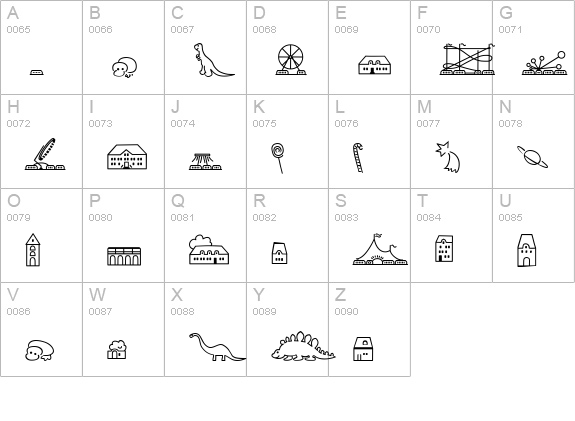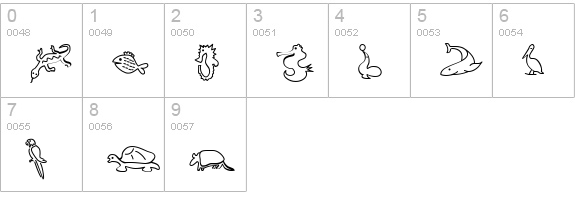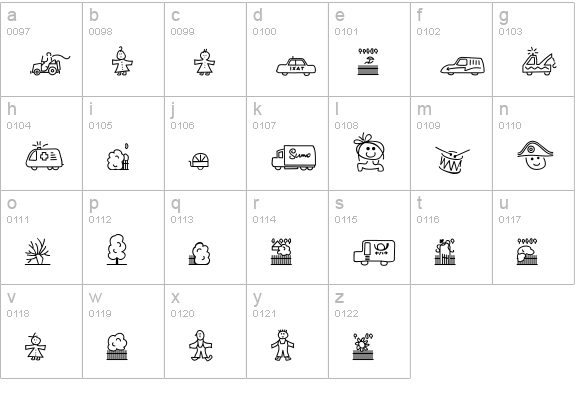
LoKinderDingsbums Links font is a whimsical and playful typeface that will add a touch of fun to any project. With its charming and quirky design, this font is perfect for children's books, invitations, and other creative projects. The unique character shapes and fun doodle-like elements make it stand out from other fonts. What makes LoKinderDingsbums Links font even more appealing is that it is completely free to download. You can easily get your hands on this delightful font at FontsMarket.com without any cost. So go ahead and bring a sense of joy and creativity to your designs with LoKinderDingsbums Links font!